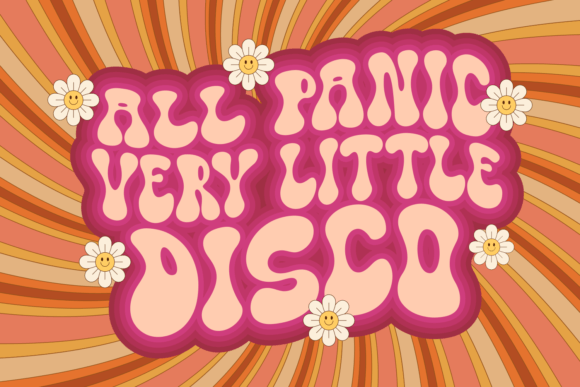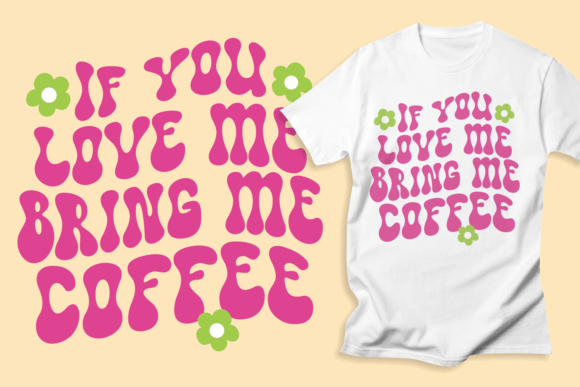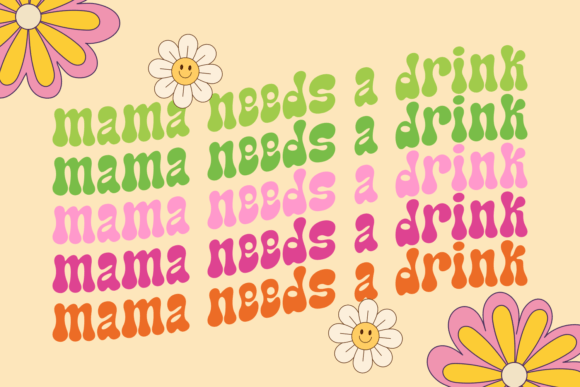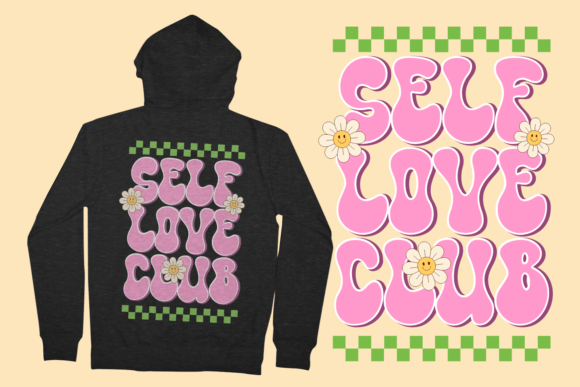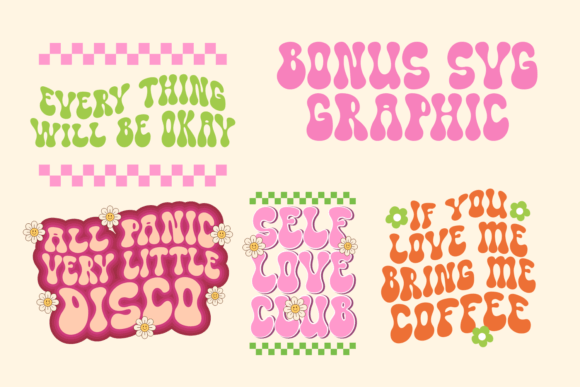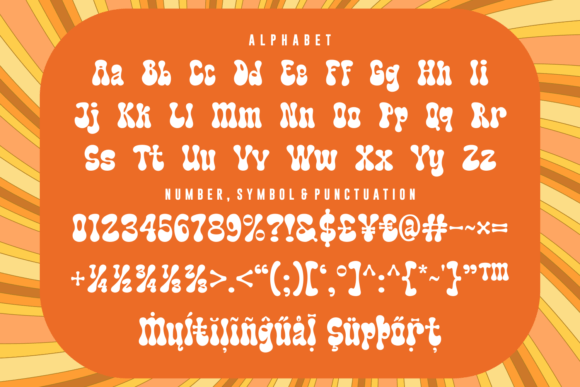
Introduction to Disco Lover Font
This font pulsates with energy and is a delightful blend of retro charm and contemporary style.
Is the perfect choice for projects that require a touch of funk and personality It lends itself well to album covers, posters, advertisements, and any design that demands attention and exudes an infectious sense of fun.
Key Features of Disco Lover Font
Why Choose Disco Lover Font?
Disco Lover Font offers exceptional quality and versatility, making it a valuable addition to your design toolkit. Whether you’re creating for personal projects or commercial use, Disco Lover Font delivers professional results.